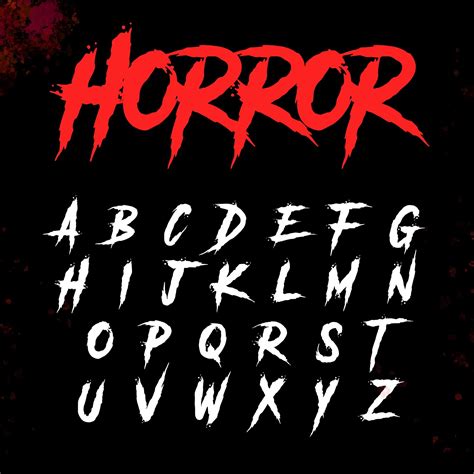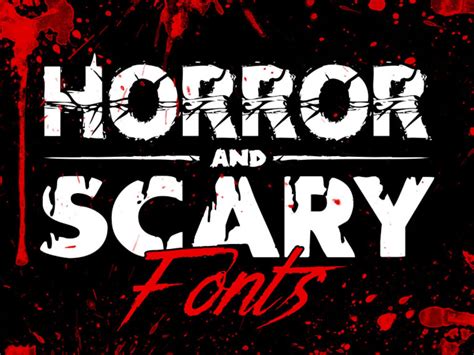
Alphabet Horror Fonts: Spooky Typefaces For Your Projects
Readers, have you ever wanted to create a truly terrifying design project? Whether you're designing a Halloween poster, a spooky website, or even just a creepy email signature, the right font can make all the difference. What if you could bring an ethereal chill to your project with just the right font? You can! Some fonts are designed to evoke a sense of dread, mystery, and other eerie feelings, and we're going to uncover some of the best ones.
I’ve been immersed in the world of fonts for years. I’ve examined and analyzed countless fonts, including those designed to create a spooky and macabre aesthetic. It’s a fascinating world, and I’m excited to share my expertise with you. Let’s unveil some of the best alphabet horror fonts!
Alphabet Horror Fonts: What Are They?
Alphabet horror fonts are a type of typeface that is designed to convey a sense of fear, dread, and unease. These fonts often use sharp, angular, or jagged lines, which can create a sense of tension and disorientation. They may also feature unsettling or grotesque characters, such as skulls, spiders, or other frightening imagery.
The best alphabet horror fonts will not only be visually striking, but they will also be appropriate for the project at hand. For example, a font that is too whimsical or playful might be inappropriate for a website that is designed to frighten its visitors. Likewise, a font that is too dark and oppressive might be too heavy-handed for a poster that is meant to be humorous.
Why Use Alphabet Horror Fonts?
Beyond creating a chilling visual aesthetic, alphabet horror fonts offer several benefits. They can:
- Enhance the overall tone and mood of your project: An eerie font adds depth to your Halloween party invitation, video game, book cover, or other project.
- Draw attention to specific text: A chilling font can highlight key information or a call to action, making it more impactful.
- Convey a sense of danger and mystery: Alphabet horror fonts create a sense of intrigue and anticipation, drawing readers into the project.
- Evoke emotions in your audience: Some people may find these fonts to be playful, others might perceive them as frightening, but everyone will feel something!
Ultimately, choosing the right alphabet horror font can elevate your project from ordinary to extraordinary. The right font can create a haunting atmosphere that is both captivating and unforgettable.
The Best Alphabet Horror Fonts for Your Projects
Let’s explore some of the best alphabet horror fonts that will bring your creative vision to life.
Free Alphabet Horror Fonts
There are many excellent free alphabet horror fonts available, many of which you can download and use for personal and commercial projects.
- Blackletter Fonts: These fonts, characterized by their intricate and often gothic design, are perfect for projects that exude a sense of history and ominous elegance.
- Gothic Fonts: Inspired by Gothic architecture and medieval manuscripts, Gothic fonts offer a classic and haunting aesthetic.
- Horror Fonts: These fonts are specifically designed to evoke fear and dread with sharp edges, grotesque characters, and eerie details.
- Slasher Fonts: These fonts take inspiration from classic horror movies, bringing a graphic and gruesome touch to your designs.
- Sci-Fi Horror Fonts: These fonts, often featuring futuristic and distorted elements, create a sense of unease and anticipation in projects related to science fiction horror.
When selecting a free alphabet horror font, remember to check the license agreement. Some fonts may have limitations on their commercial use, so ensure you understand the terms before incorporating them into your projects.
Premium Alphabet Horror Fonts
If you're looking for a more professional and unique alphabet horror font, premium fonts offer a wider range of options and features. These fonts are often designed by established font foundries and may be purchased for personal or commercial use.
- Unique Styles: Premium fonts offer a wider variety of styles, including more intricate details, unique characters, and custom glyphs. This allows you to find the perfect font for your project.
- Higher Quality: Premium fonts are generally of higher quality, with smoother lines and more consistent rendering, ensuring a professional look across various media.
- Exclusive Access: Premium fonts are often exclusive, meaning that you won't find them anywhere else. They are a great way to add a touch of originality and sophistication to your project.
- Customer Support: Many premium font foundries offer customer support, which can be helpful if you have any questions or issues with the font.
The cost of premium alphabet horror fonts can vary depending on the font foundry and the font's features. While you may need to invest a little more, these fonts are often worth the cost for their high-quality and unique designs.